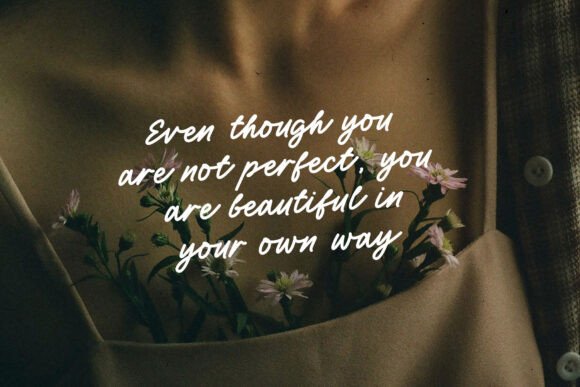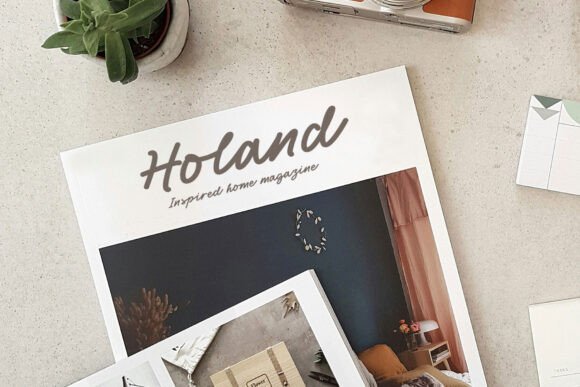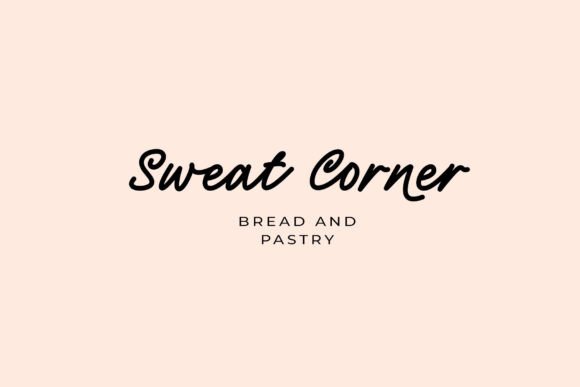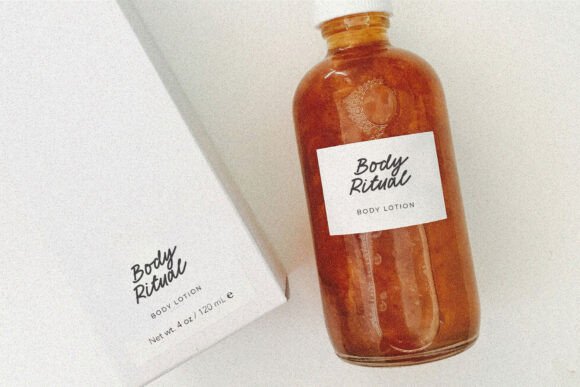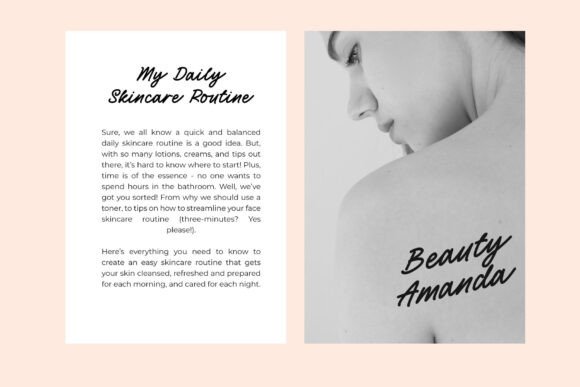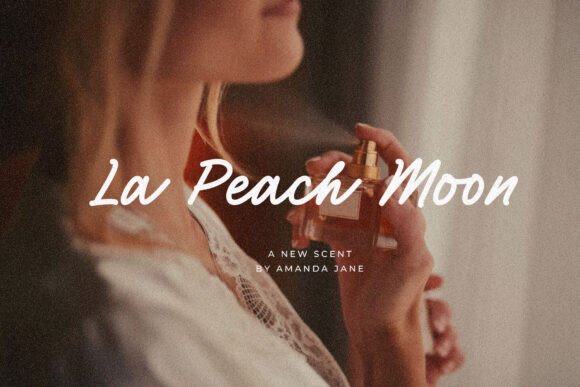
Casbery Font: Elevate Your Designs with Elegance and Sophistication
Are you tired of using the same old fonts in your designs? Look no further than Casbery, an exquisite handwritten font that is sure to become your new favorite. With its classy calligraphic influences and contemporary feel, Casbery is the perfect choice for designers and crafters looking to add a touch of elegance and sophistication to their projects.
The Story Behind Casbery
Casbery is more than just a font – it’s a work of art. Masterfully designed to capture the essence of traditional calligraphy, Casbery brings a level of refinement and luxury to any design. Whether you’re working on a branding project, a wedding invitation, or a craft project, Casbery is sure to make a lasting impression.
What Makes Casbery Special?
So, what sets Casbery apart from other fonts? Here are just a few of its standout features:
- Classy Calligraphic Influences: Casbery is deeply rooted in traditional calligraphy, giving it a level of sophistication and elegance that’s hard to find in other fonts.
- Contemporary and Fresh: Despite its classic influences, Casbery feels modern and fresh, making it perfect for designers who want to create something new and exciting.
- Handwritten with Love: Casbery is a handwritten font, which means that every letter and every word is infused with a sense of personality and charm.
How to Use Casbery in Your Designs
Ready to fall in love with Casbery? Here are a few ways you can use this beautiful font in your designs:
- Branding and Logos: Use Casbery to create a luxurious and sophisticated brand identity that will set you apart from the competition.
- Wedding Invitations and Stationery: Casbery is perfect for wedding invitations, save-the-dates, and other stationery items that require a touch of elegance.
- Crafting and Scrapbooking: Add a personal touch to your craft projects and scrapbooking pages with Casbery, which is sure to make your creations stand out.
Tips for Getting the Most Out of Casbery
To really make Casbery shine in your designs, here are a few tips to keep in mind:
- Pair it with Neutrals: Casbery is a statement font, so pair it with neutral colors and simple backgrounds to really make it pop.
- Experiment with Sizes: Don’t be afraid to experiment with different font sizes to create visual interest and hierarchy in your designs.
- Add a Personal Touch: Casbery is a handwritten font, so don’t be afraid to add your own personal touches and imperfections to make it feel more authentic.
In conclusion, Casbery is a truly special font that is sure to become a favorite among designers and crafters. With its classy calligraphic influences, contemporary feel, and handwritten charm, Casbery is the perfect choice for anyone looking to add a touch of elegance and sophistication to their designs. So why wait? Fall in love with Casbery today and bring your projects to the highest levels!